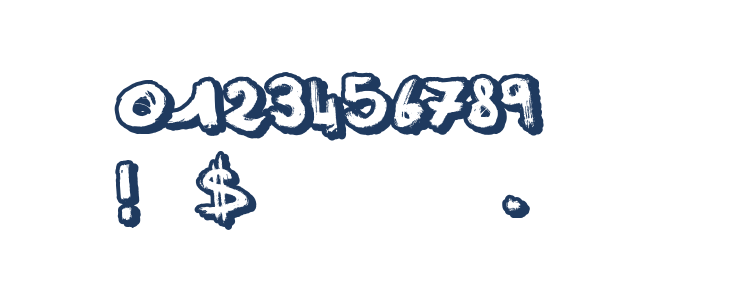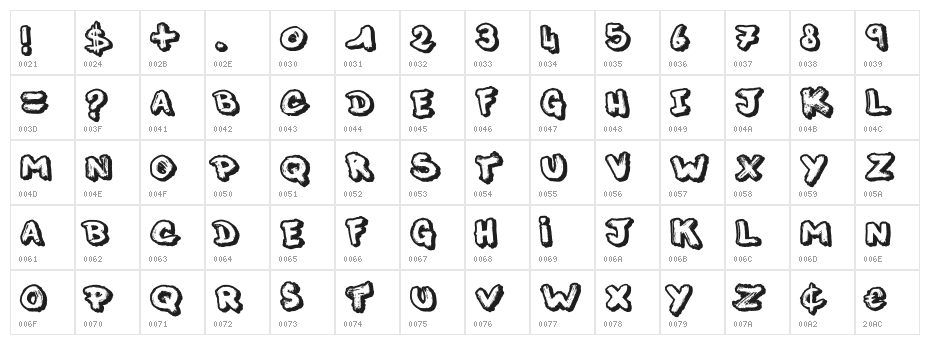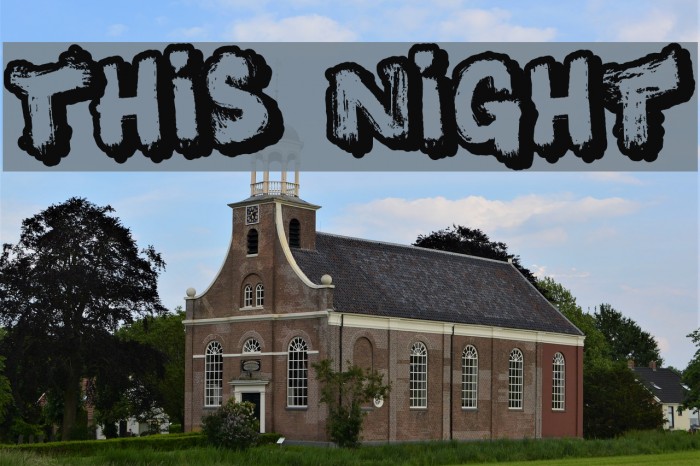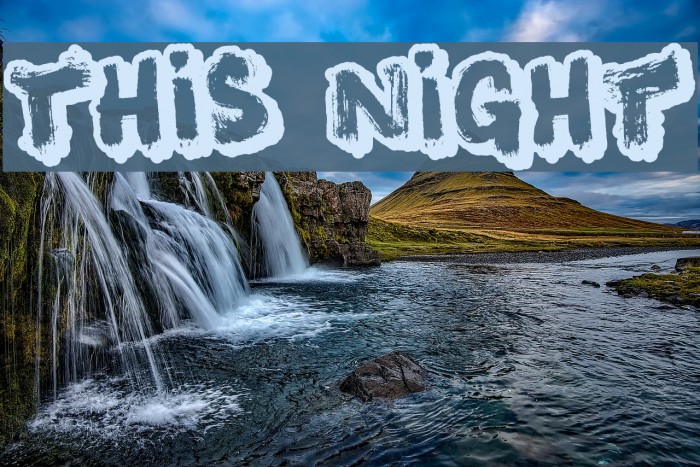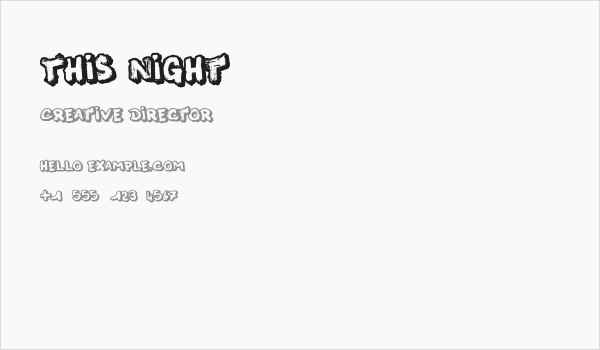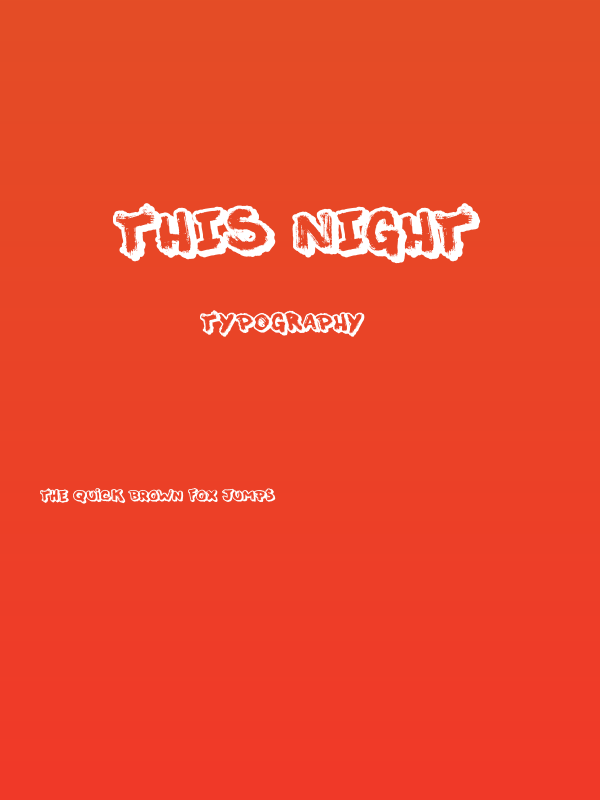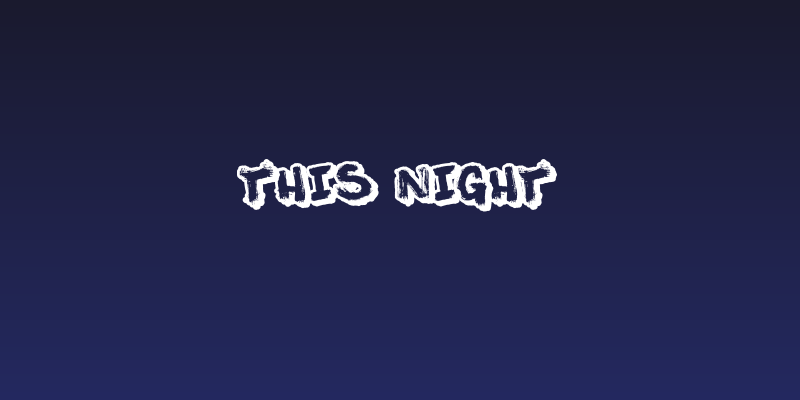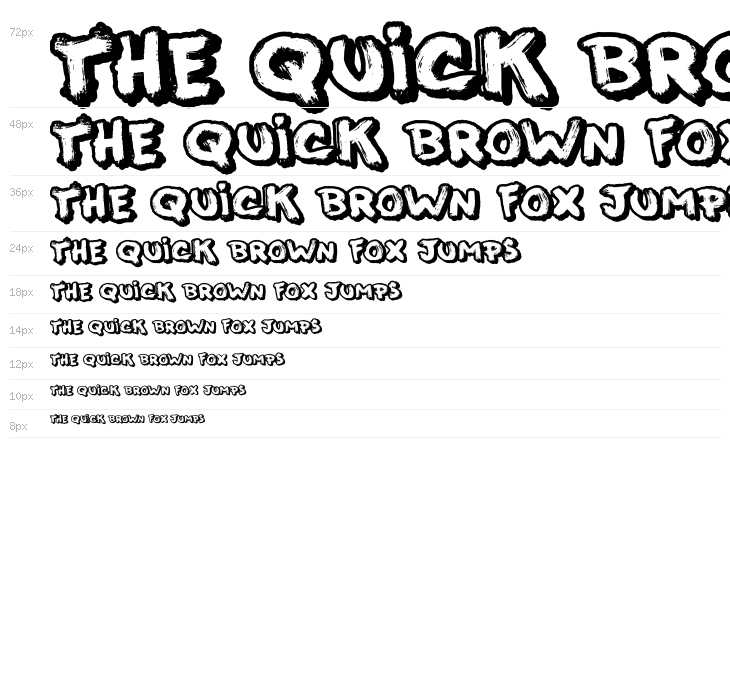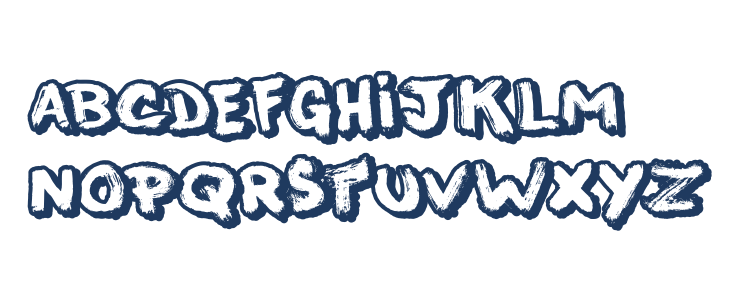
This Night Font
This Night Description
This font features a bold, graffiti-inspired style with a rough, textured appearance. The characters are outlined with a thick, uneven stroke, giving them a dynamic and energetic feel. The uppercase and lowercase letters maintain a consistent style, with a playful and rebellious edge. The numbers and special characters follow the same aesthetic, making the font suitable for creative and informal designs. The overall look is bold and eye-catching, perfect for projects that require a strong visual impact.
| Overall Style | Urban, Energetic, Rebellious |
| Use Case | Headlines, Posters, Logos |
| Proposed Projects | Ideal for street art designs, music album covers, event posters, and urban-themed branding. |